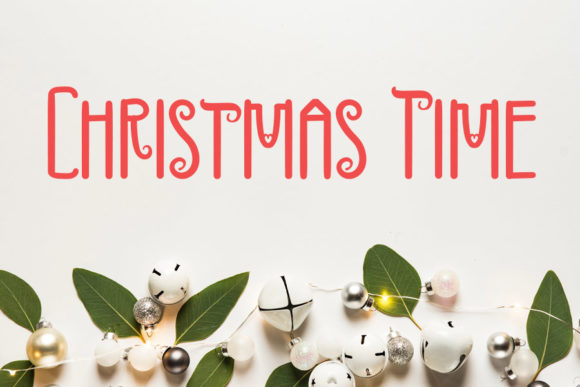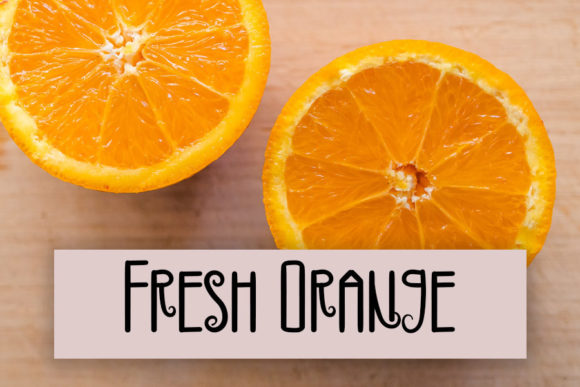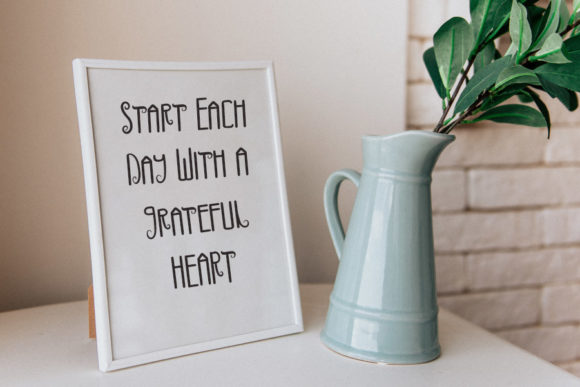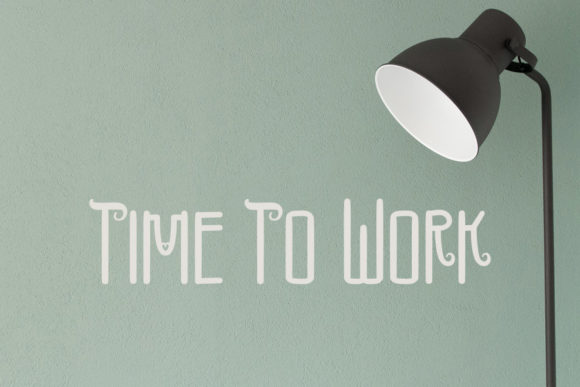
About Rosemary Font
Rosemary is a romantic handwritten font that adds a touch of joy and sweetness to your design ideas. With its charming letterforms and heart ornament, this font brings a delightful and romantic feel to your creations, making them stand out and come alive.
The romantic nature of Rosemary evokes feelings of love and warmth. The flowing letterforms and gentle curves create a sense of elegance and tenderness. Whether you’re working on wedding invitations, love letters, or any other romantic project, Rosemary infuses your designs with a touch of romance and emotion.
Rosemary’s joyful and sweet appearance adds a sense of playfulness to your designs. The heart ornament, a delightful addition to the font, brings an extra layer of charm and whimsy. It adds a unique and eye-catching element that sets your creations apart and captures the attention of your audience.
This font’s versatility allows it to shine across various design ideas. From greeting cards and love notes to branding materials and social media graphics, Rosemary adds a romantic and joyful touch to your projects. It adapts seamlessly to different themes and contexts, making it a versatile choice for expressing love and emotions.
By incorporating Rosemary into your designs, you infuse them with a sense of romance and delight. The font’s romantic handwritten style and heart ornament add a special touch that captures the heart of your audience. Your creations will come alive with a joyful and sweet atmosphere, creating a lasting impression on those who experience them.
In summary, Rosemary is a romantic handwritten font that adds joy and sweetness to your design ideas. Its charming letterforms and heart ornament create a delightful and romantic feel. Embrace the romantic nature of Rosemary and let it bring a touch of love and emotion to your creations, making them stand out and come alive with a sense of joy and sweetness.